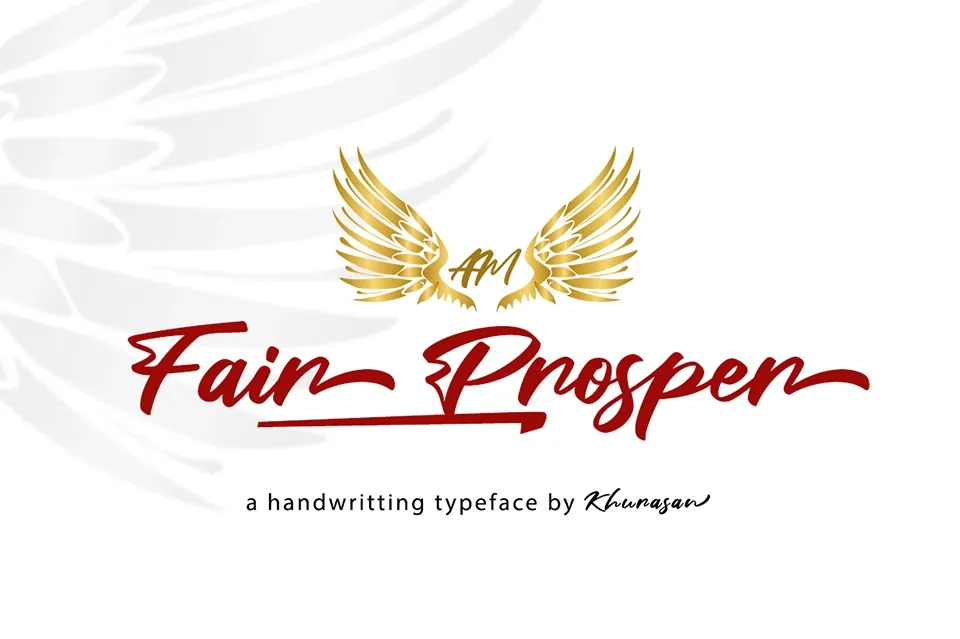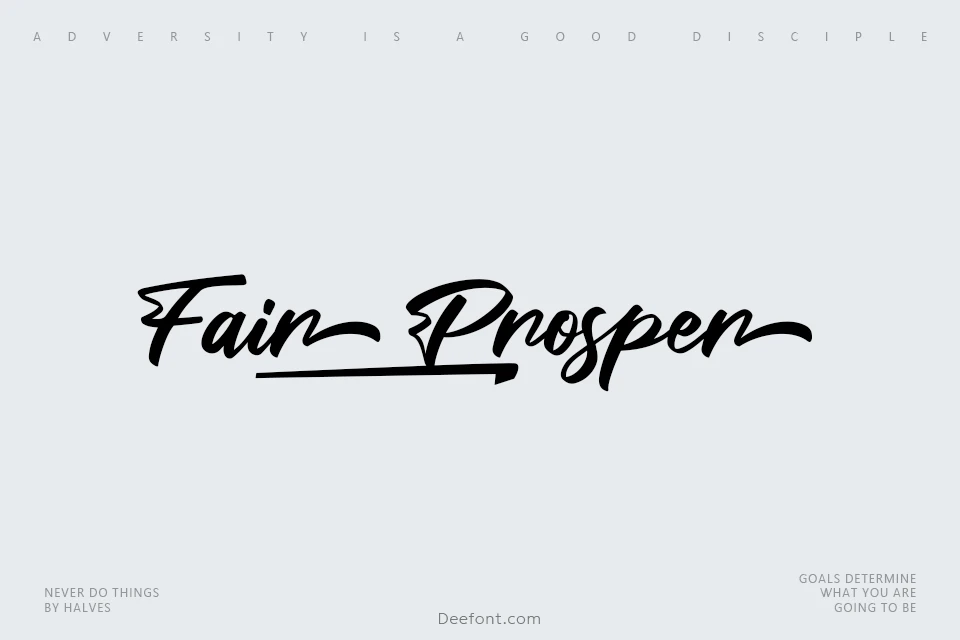
Fair Prosper Font
Fair Prosper is a bold style script font with authentic and casual appeal, created by Indonesian designer Syafrizal (Khurasan). This handwritten typeface features flowing strokes and dynamic character, making it perfect for creating standout designs with a personal touch. Its distinctive irregular letterforms and smooth finishes offer a perfect balance between elegance and street-style energy. Fair Prosper excels in various applications including branding, logos, headings, apparel, packaging, and posters. Supporting multiple languages with a comprehensive character set of uppercase, lowercase, numbers, punctuation, and symbols, this versatile font brings warmth and personality to any creative project requiring a contemporary handcrafted aesthetic.